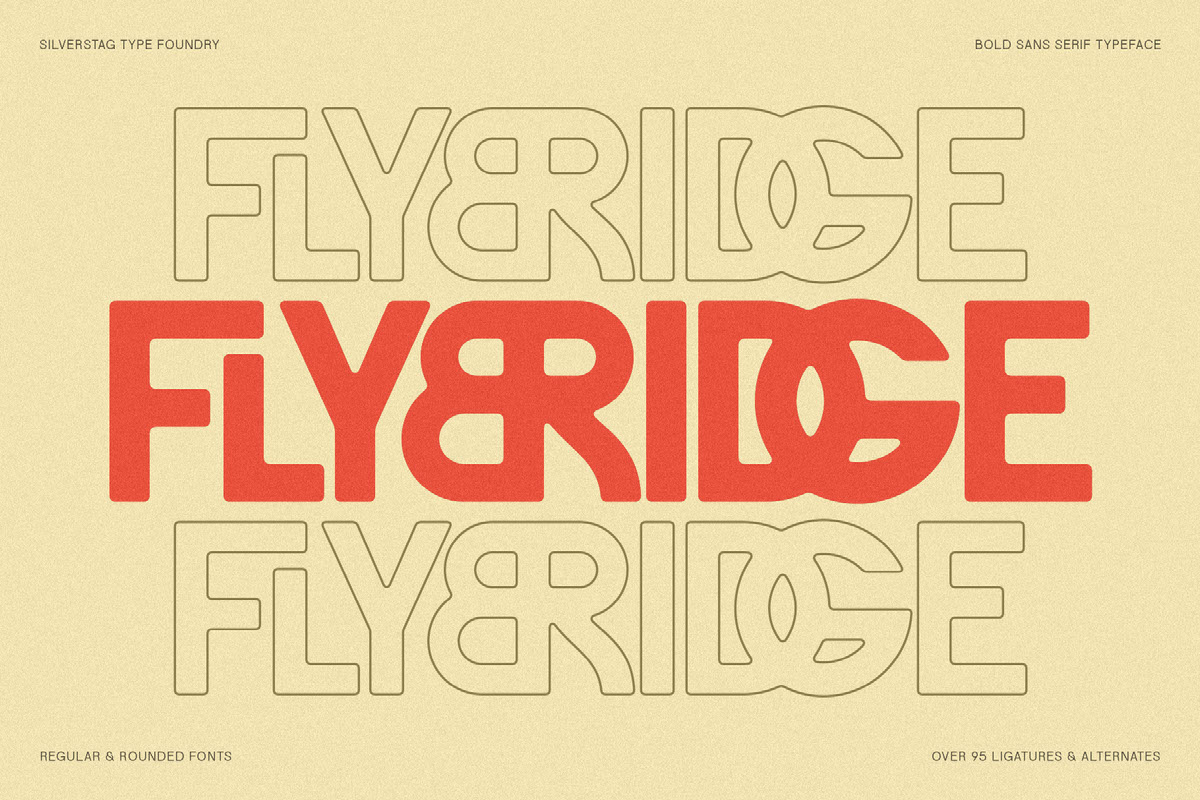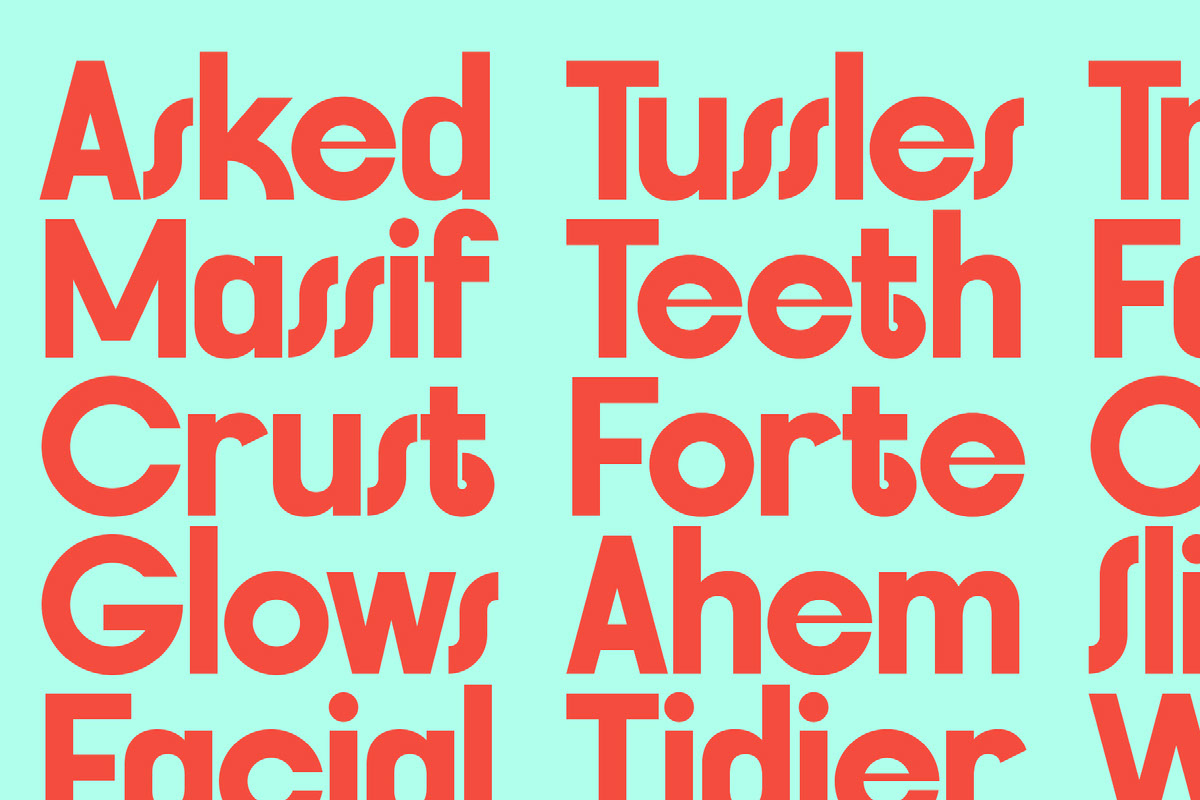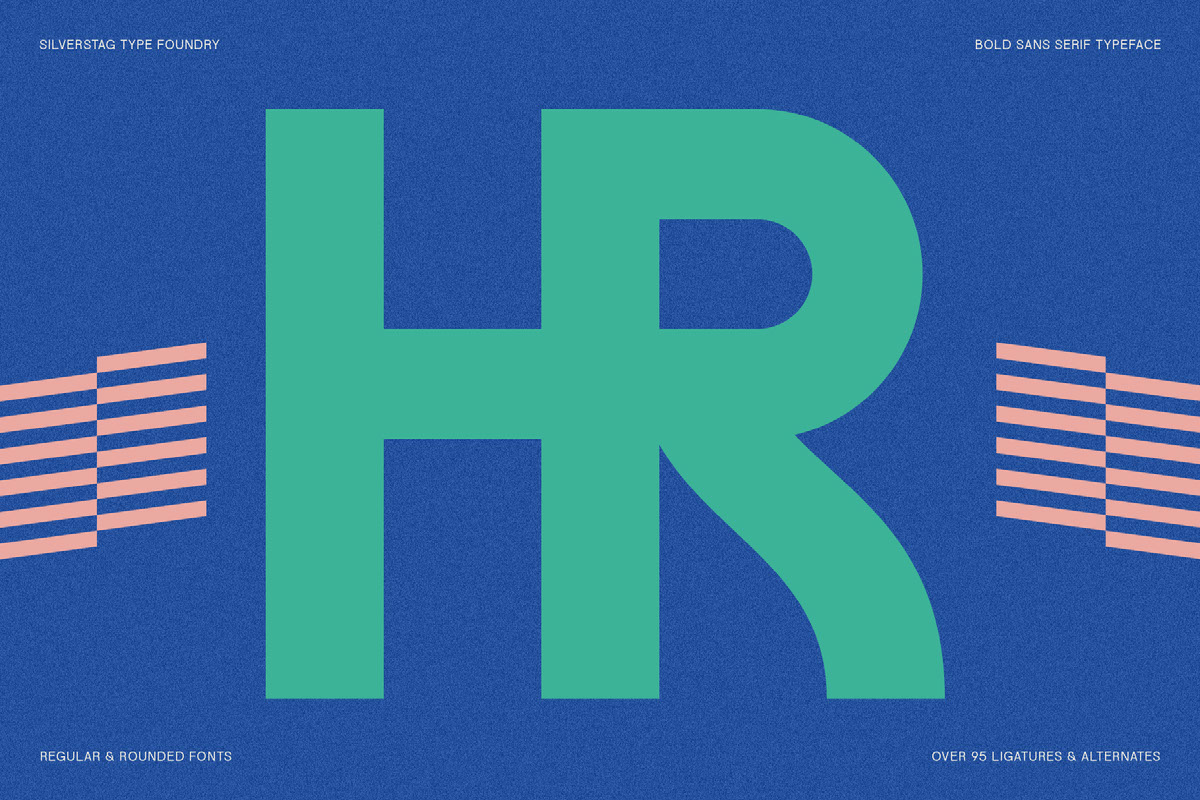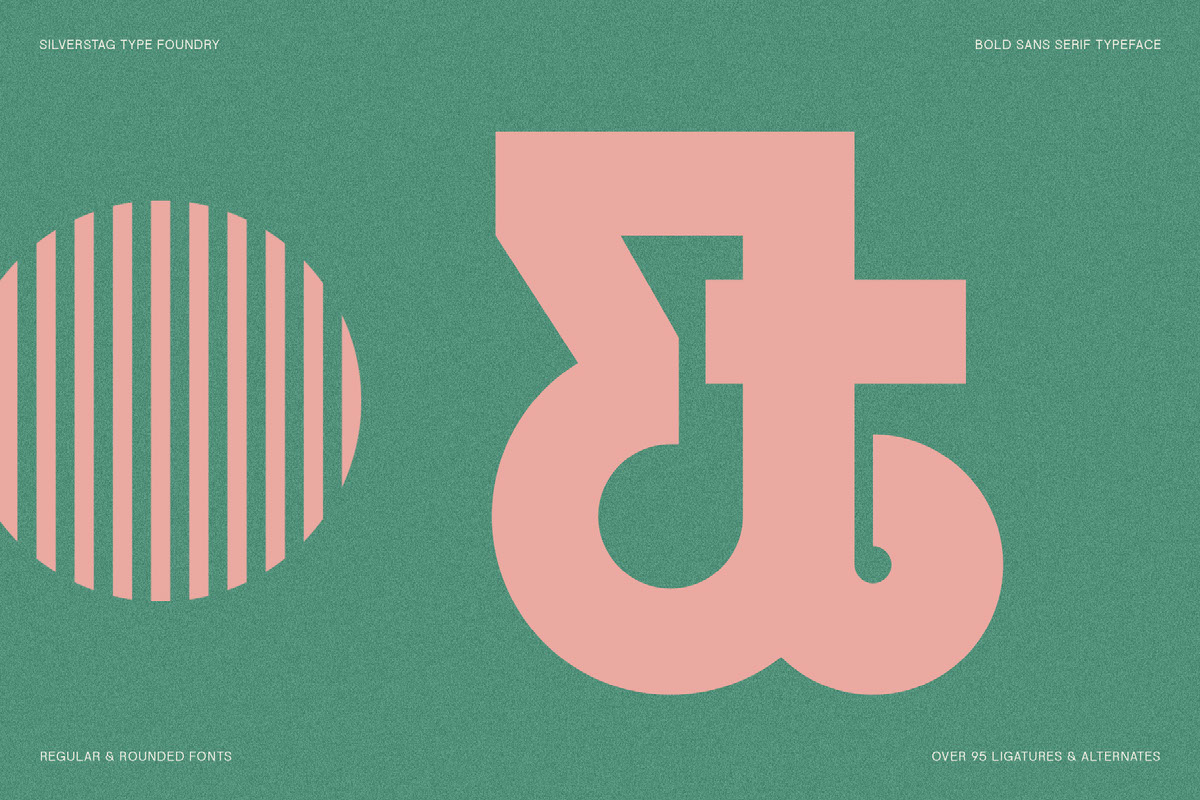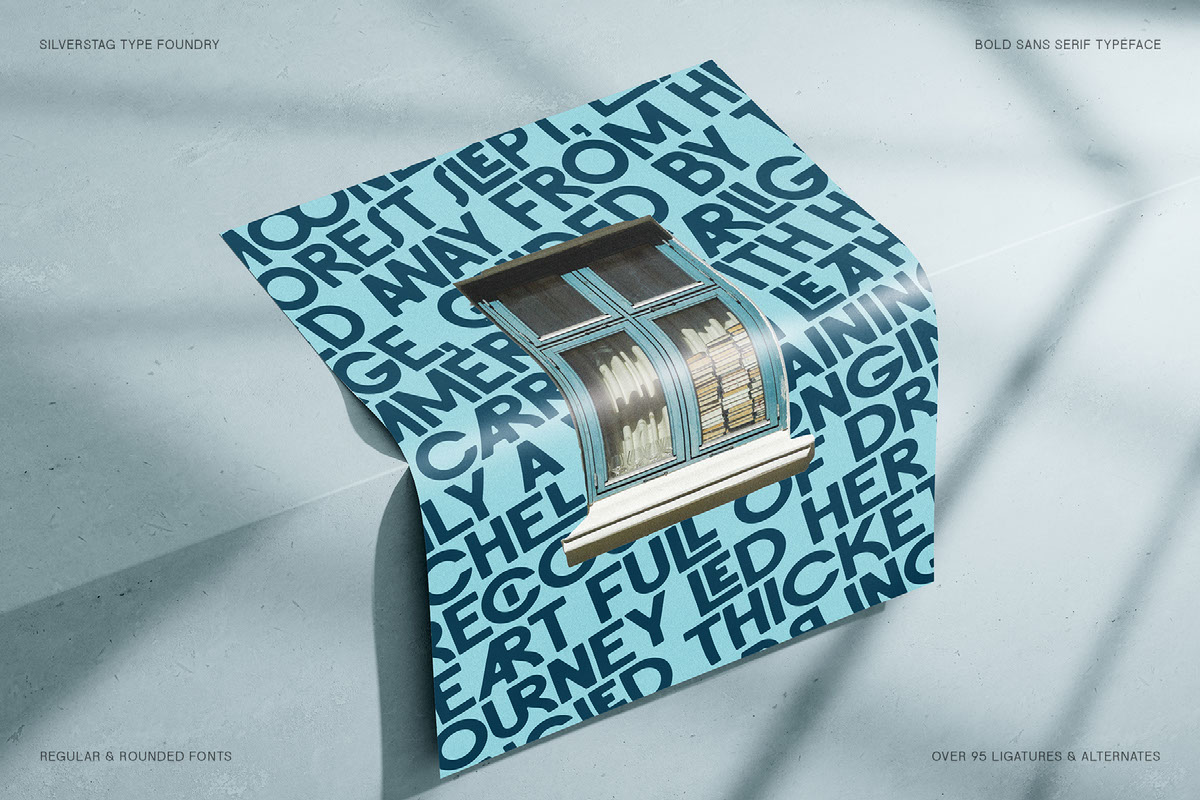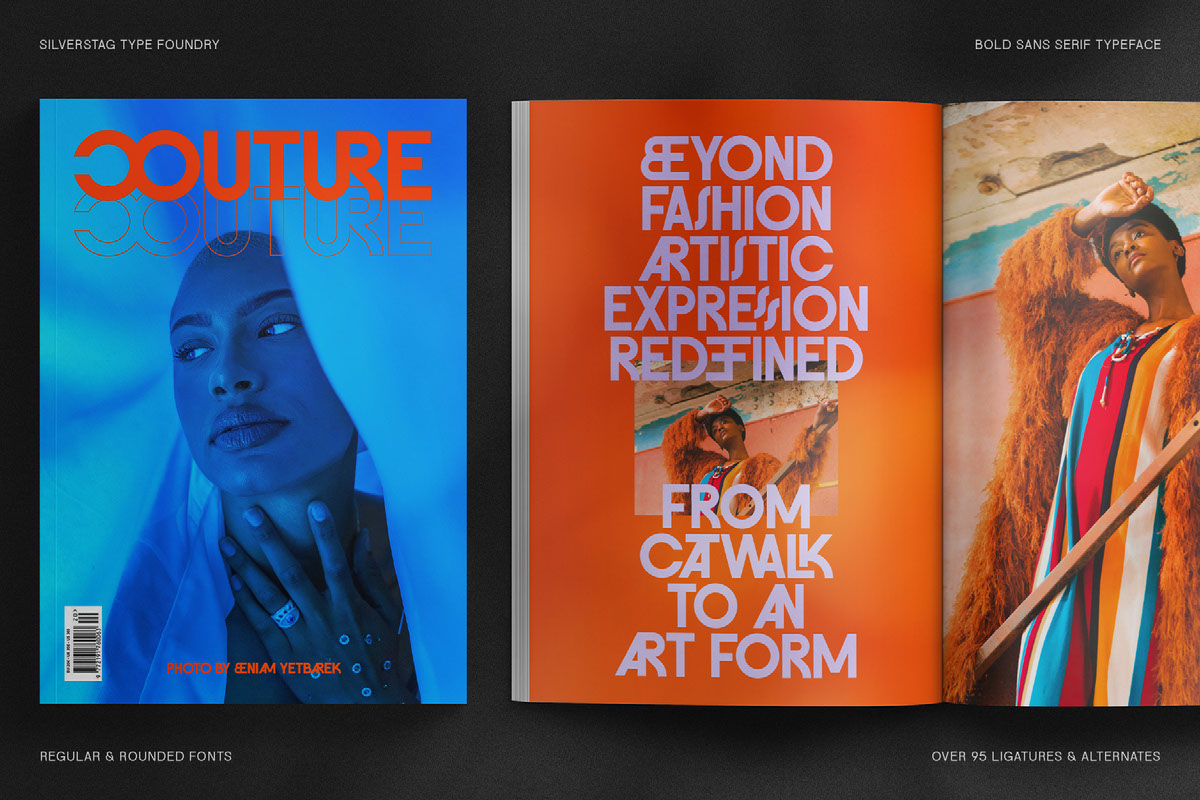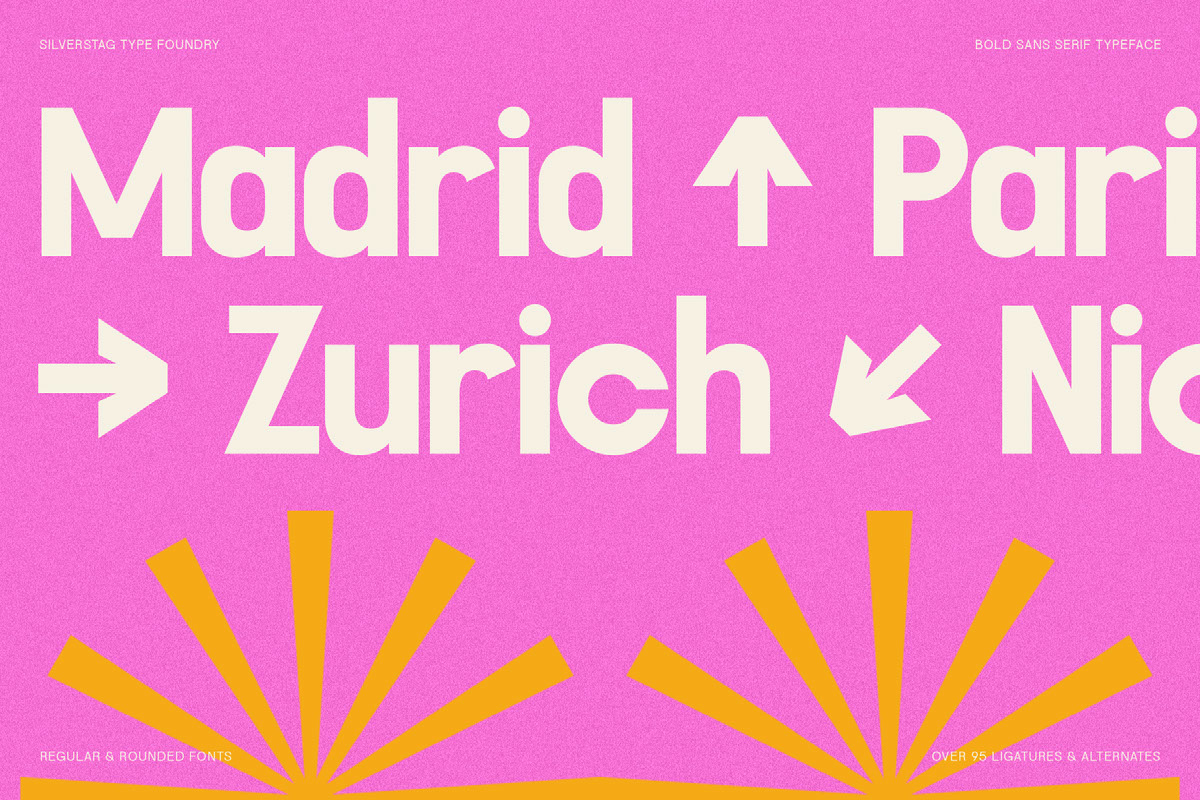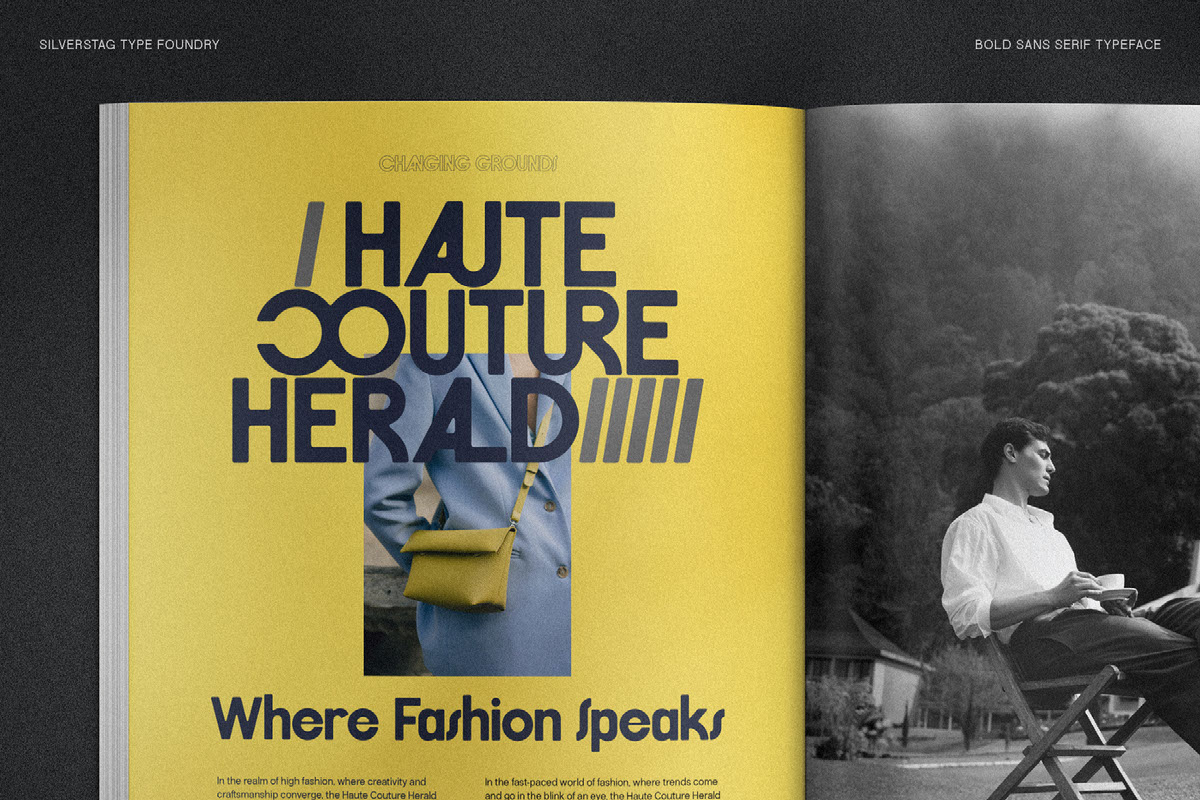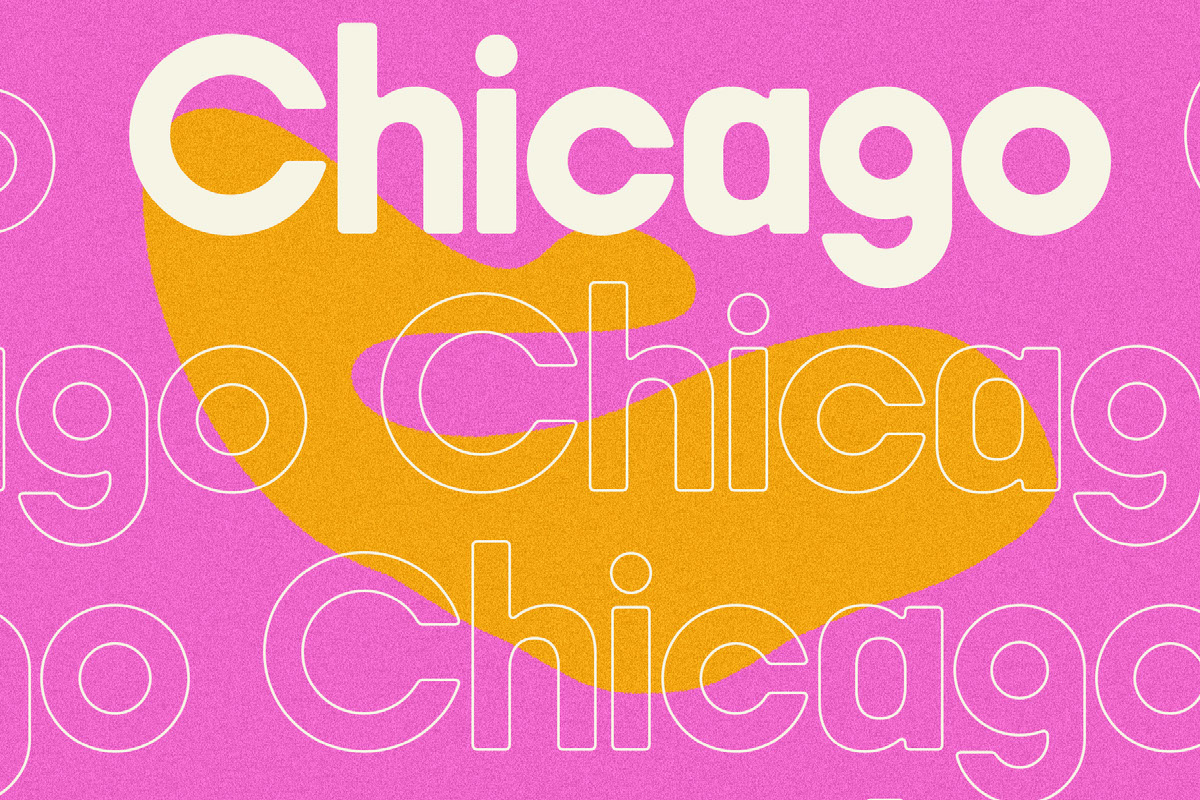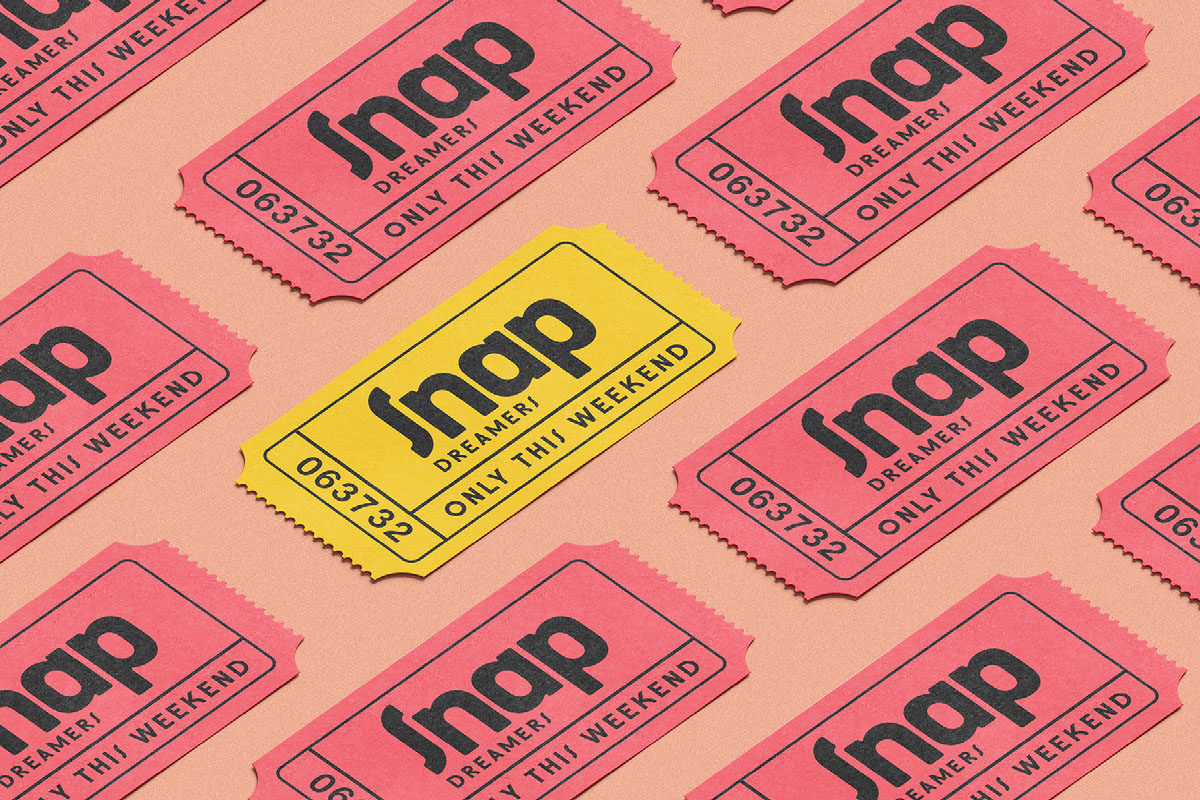
FlyBridge - Bold Ligature Rich Sans Serif Font
Unleash your inner typographic daredevil with FlyBridge, the unapologetically bold sans serif font that's packed with personality and style. With over 95 unique ligatures and support for 90+ languages, FlyBridge is the ultimate tool for creating eye-catching headlines, logos, and branding that demand attention.